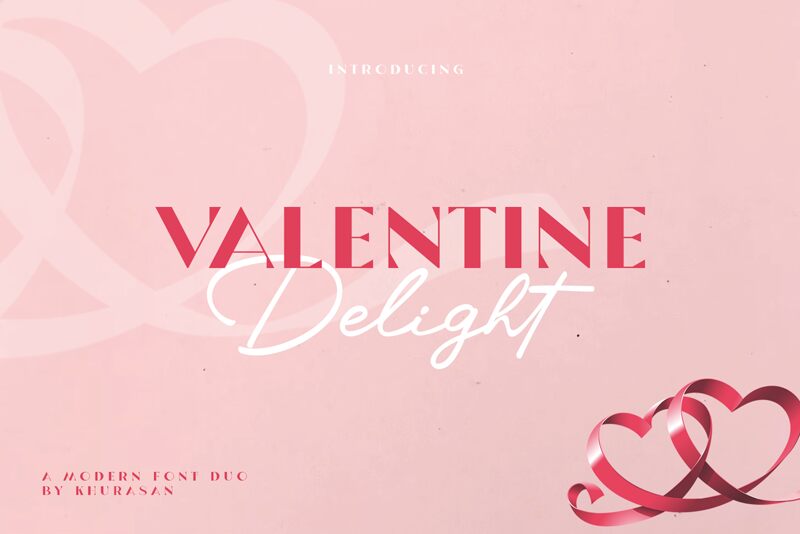
Valentine Delight Serif font family is a free serif font designed by Khurasan™. Presented in 2 font styles, its letters showcase a special combination between a stylish, sophisticated, and flowing look thanks to the script elements and delicate strokes. And to give Valentine Delight an extra effect, both styles can appear in the same project for a distinct look of the letters.
A font for those who need a touch of elegance and modernity for any project, it can be used for t-shirt designs, branding and packaging projects for beauty-related brands, businesses, and shops, as well as your websites within the web copy. If it is a special Valentine’s Day celebration or you’re looking forward to a cheerful Friday night, invite your loved ones to the occasion with elegant invitations cards.